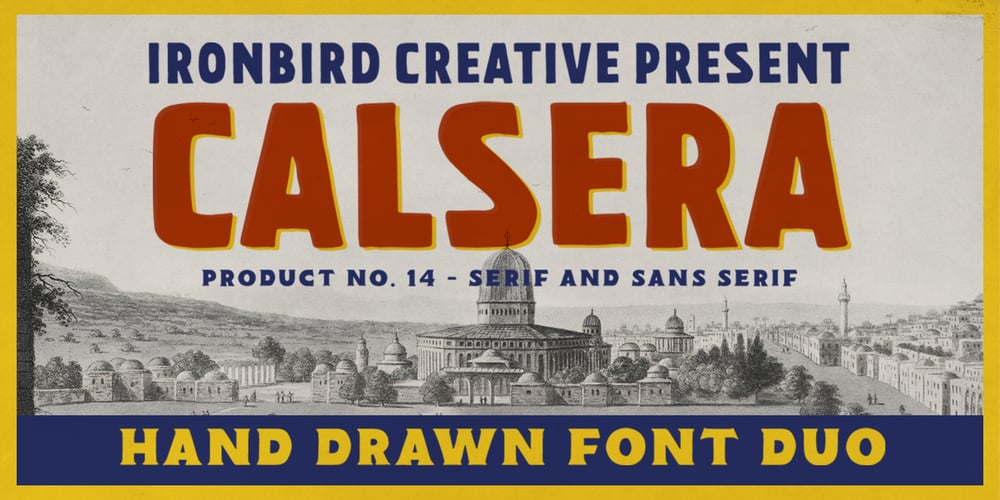
Calsera Font Family was designed by Septianto Nugroho and published by Ironbird Creative. Calsera contains 2 styles and family package options. Calsera is a vintage display font duo. Inspired by 50s-60s signages, this font made to bring back the good ol’ days. This type of font perfectly made to be applied especially in logo, headline, signage and the other various formal forms such as invitations, labels, logos, magazines, books, greeting cards, packaging, fashion, make up, stationery, novels, labels or any type of advertising purpose.ADDITIONAL INFORMATION :For upgrading license please contact me. Upgraded licenses are required for apps, books, television, commercial exhibition, film, gaming, print on demand products, etc. simply email me to : ironbirdcreative@gmail.comWe hope you enjoy the font, please feel free to comment if you have any thoughts or feedback. Thanks for purchasing and have fun!Regards,Ironbird Creative